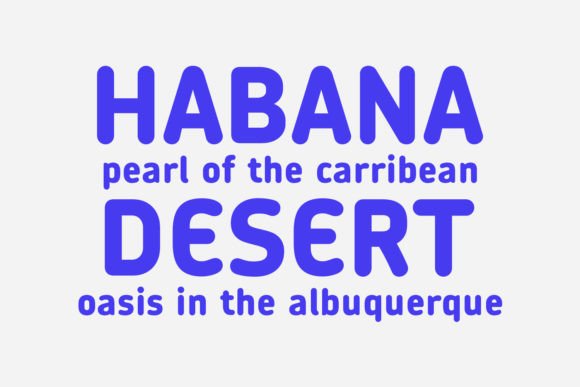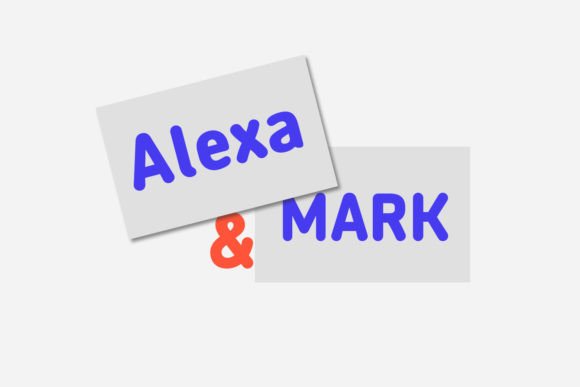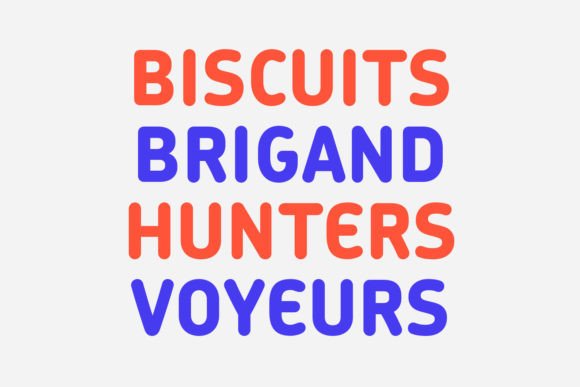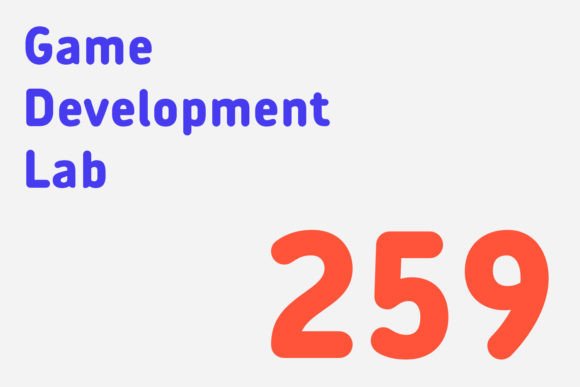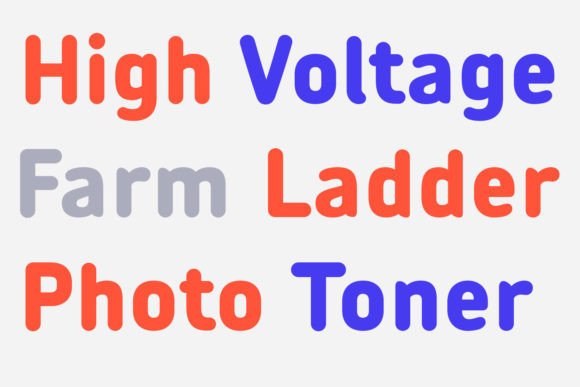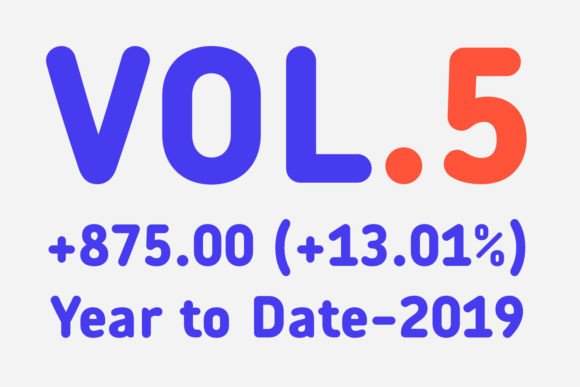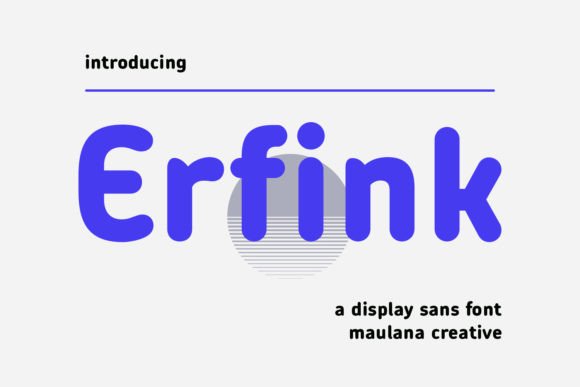
Erfink Font: The Modern and Fun Sans Serif Font for Designers and Crafters
In the world of typography, fonts play a crucial role in conveying the tone and personality of a design. With the numerous font options available, designers and crafters are constantly on the lookout for unique and versatile fonts that can elevate their work. One such font that has gained popularity in recent times is the Erfink Font. In this article, we’ll delve into the features, benefits, and uses of Erfink Font, and explore why it’s a great addition to any designer’s or crafter’s toolkit.
What is Erfink Font?
Erfink is a modern and fun sans serif font that has taken the design world by storm. Its beautiful and well-balanced characters make it an excellent choice for a wide range of designs, from digital projects to print materials. The font’s clean and simple lines, combined with its friendly and approachable feel, make it perfect for designers and crafters looking to add a touch of personality to their work.
Key Features of Erfink Font
• Modern and Fun Design: Erfink Font boasts a modern and fun design that is sure to grab attention. Its sans serif style gives it a clean and contemporary look that’s perfect for designs that require a fresh and youthful feel.
• Well-Balanced Characters: One of the standout features of Erfink Font is its well-balanced characters. Each letter is carefully crafted to ensure that the font looks great in any context, making it easy to read and visually appealing.
• Versatility: Erfink Font is incredibly versatile and can be used for a wide range of designs, including logos, headings, body text, and more. Its flexibility makes it an excellent choice for designers and crafters who need a font that can adapt to different design requirements.
Benefits of Using Erfink Font
So, why should designers and crafters choose Erfink Font for their projects? Here are just a few benefits of using this fantastic font:
• Easy to Read: Erfink Font is incredibly easy to read, making it perfect for body text and other applications where legibility is crucial.
• Unique and Memorable: Erfink Font has a unique and memorable design that will help your work stand out from the crowd.
• Time-Saving: With Erfink Font, designers and crafters can save time and effort, as the font’s versatility and legibility reduce the need for multiple font changes.
Use Cases for Erfink Font
Erfink Font is an incredibly versatile font that can be used in a wide range of design applications. Here are just a few examples of how you can use Erfink Font:
• Logos and Branding: Erfink Font is perfect for logos and branding materials, as its modern and fun design can help to create a memorable and engaging brand identity.
• Headings and Titles: The font’s clean and simple lines make it an excellent choice for headings and titles, adding a touch of personality to any design.
• Body Text: Erfink Font’s legibility and readability make it perfect for body text, ensuring that your message is communicated clearly and effectively.
• Digital and Print Materials: Erfink Font can be used for both digital and print materials, including brochures, flyers, posters, and more.
In conclusion, Erfink Font is an excellent choice for designers and crafters looking for a modern and fun sans serif font that can elevate their work. Its beautiful and well-balanced characters, versatility, and legibility make it perfect for a wide range of designs. Whether you’re working on a logo, heading, body text, or any other design project, Erfink Font is sure to impress. So why not give Erfink Font a try and see how it can enhance your designs?